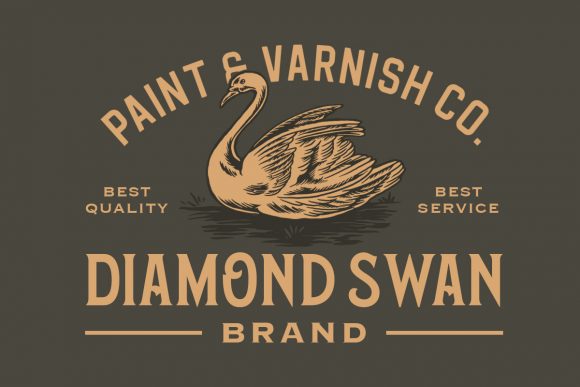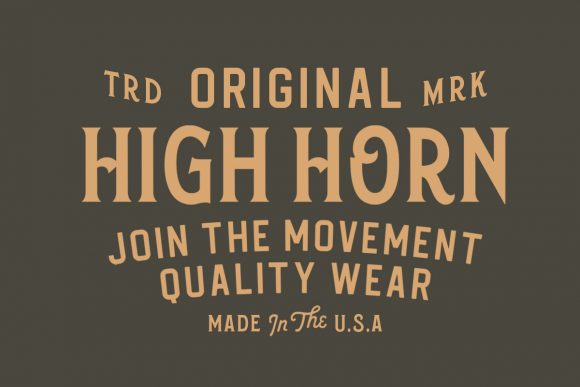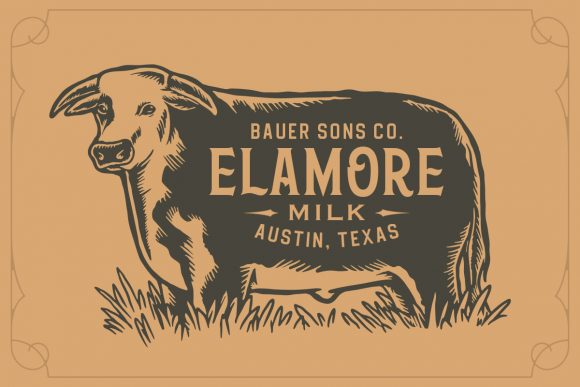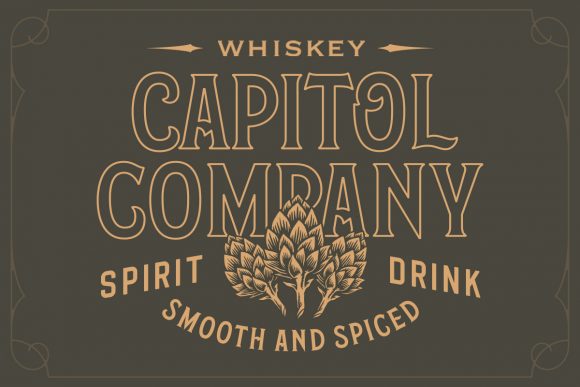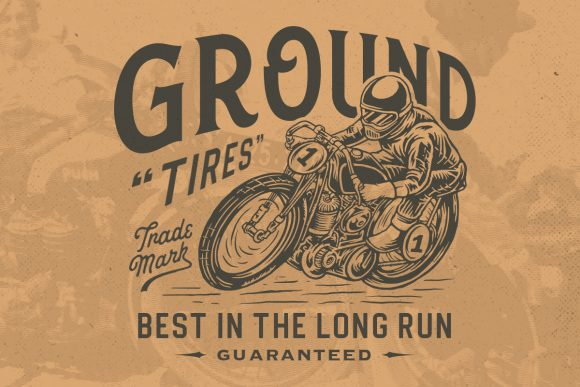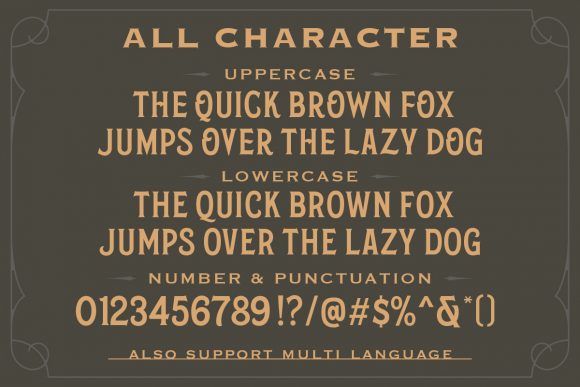
Introduction to Lanford Font
Have you ever been stuck on a design project, struggling to find the perfect font to capture the essence of your creative vision? It’s a frustrating moment we’ve all been there. But what if I told you that there’s a font that can transport you back in time, adding a touch of nostalgia to your designs?
Enter the Lanford Font, an imposing, vintage styled display font that exudes strength, confidence, and dynamism. With its high-quality design, this font is a valuable resource for designers looking to elevate their creative projects. Whether you’re working on a logo, poster, or brochure, the Lanford Font is sure to make a statement.
Key Features of Lanford Font
- High-quality design resource for creative projects, suitable for various applications such as logos, headings, and body text.
- Includes a large character set, covering a wide range of languages and characters, making it a versatile choice for global creative projects.
- Designed with a modern aesthetic, the Lanford Font is perfect for contemporary design projects that require a sleek and sophisticated look.
Honest Review: Lanford Font
I recently stumbled upon the Lanford Font, and I must say it’s been a delightful addition to my design resource library. The first thing that caught my attention was its high quality and versatility. Whether I’m working on a creative project or need a font for a specific design element, the Lanford Font has been a reliable choice.
- ✨ High-quality design that’s perfect for various creative projects
- ✨ Transparent background, making it easy to customize and integrate into different designs
- ⚠️ Limited font styles, which may not be ideal for projects that require a diverse range of fonts
Overall, I’m impressed with the Lanford Font, and I appreciate its transparency and high quality. While it may not be perfect, it’s definitely a valuable addition to any designer’s toolkit. I’d definitely recommend it for personal projects or non-commercial use.
Lanford Font
The Lanford Font is a high-quality design resource perfect for any creative project. Its transparent background makes it easy to incorporate into various designs.
Alternatives to Lanford Font
Alegreya Sans is a high-quality sans-serif font that’s perfect for creative projects requiring a clean and modern design. Its transparent background makes it ideal for backgrounds and overlays. It’s free to download and a great alternative to Lanford Font for designers looking for a more subtle aesthetic.
Compared to Lanford Font, Alegreya Sans is more minimalist and versatile, making it suitable for a wide range of design resources.
Montserrat is a popular sans-serif font designed for urban environments. It’s a great choice for designers working on high-quality design projects that require a strong, modern look. Its transparent background and free download make it an excellent alternative to Lanford Font.